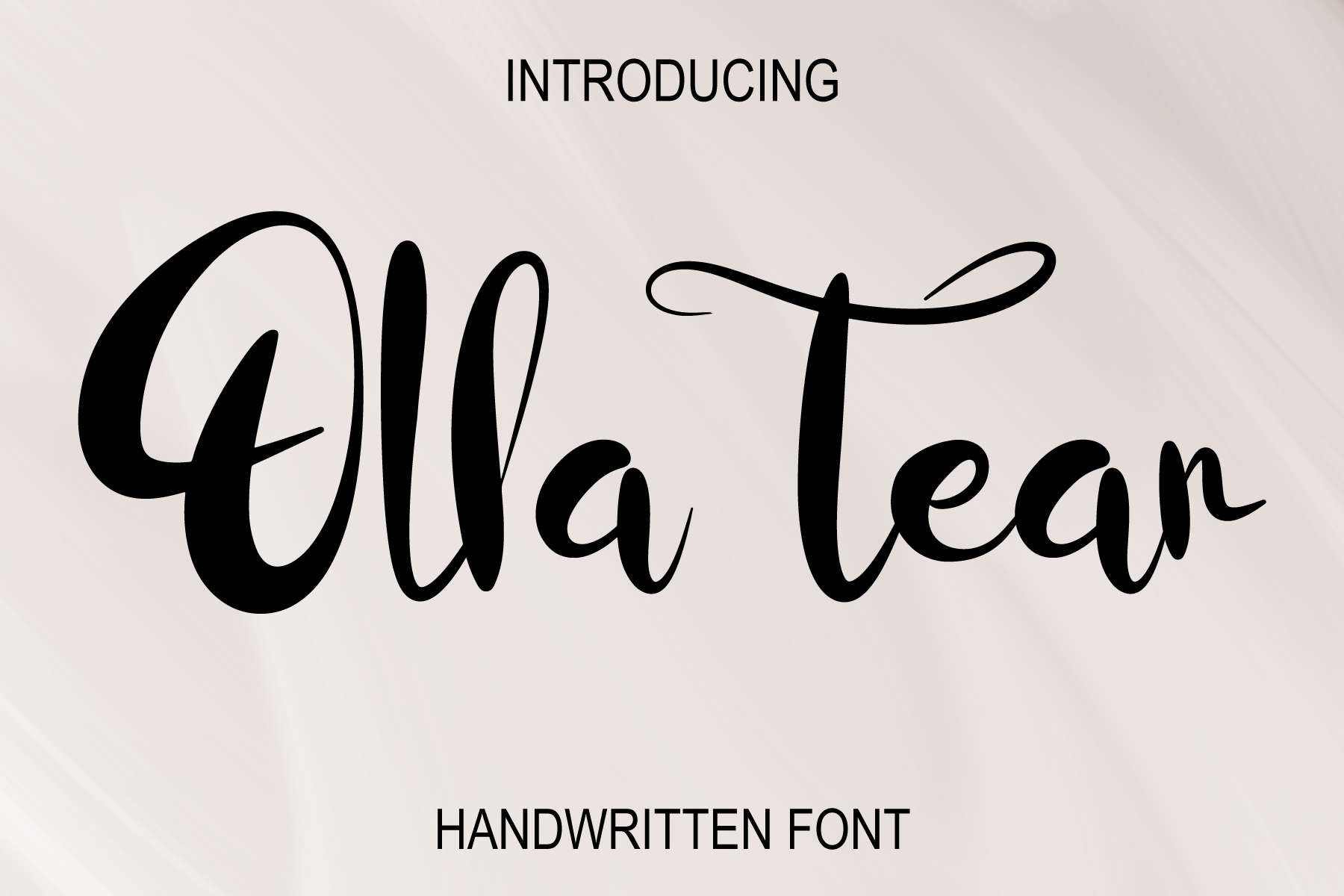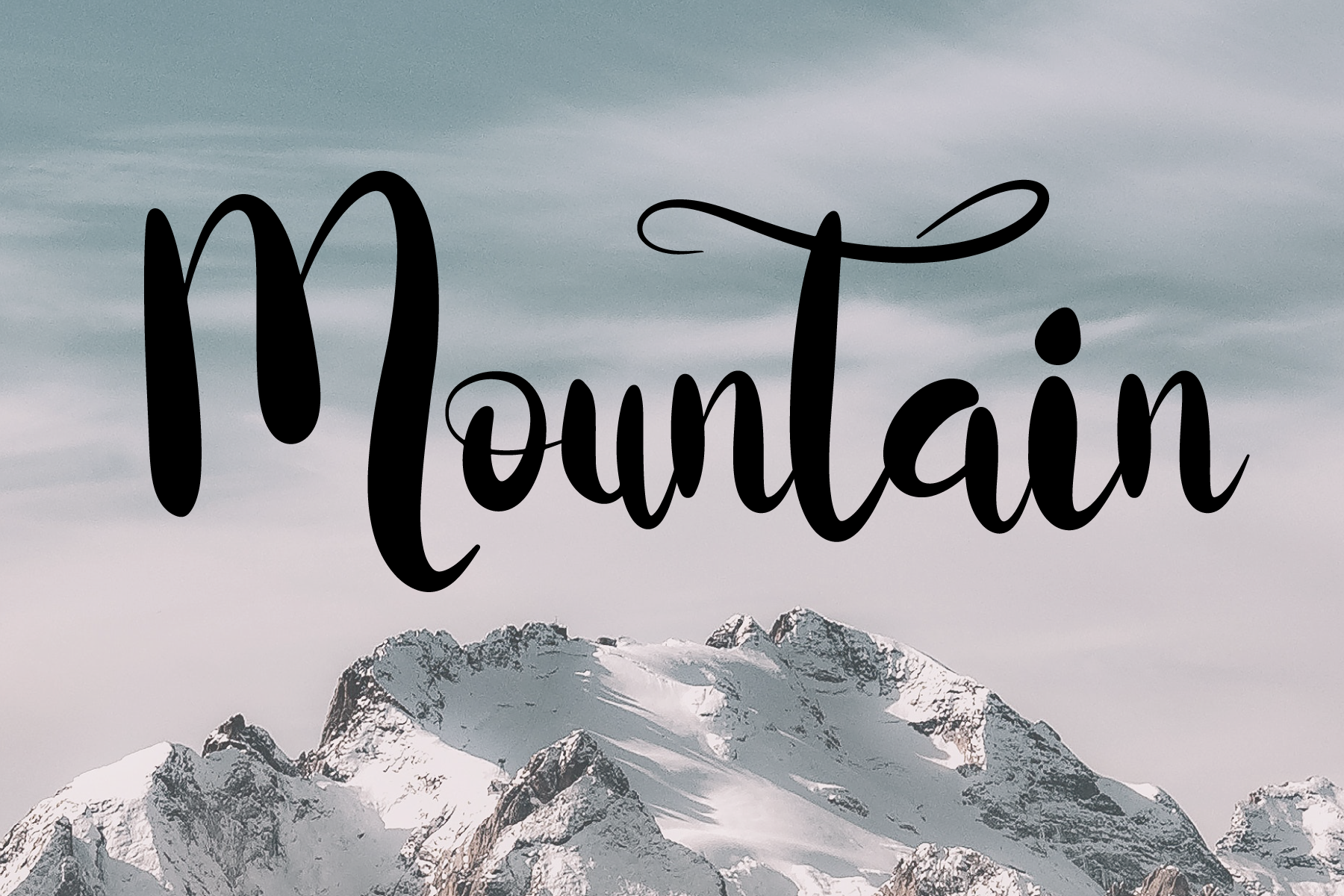
Olla Tear Script Font
This is a trendy and stylish script font. It looks stunning on wedding invitations, thank you cards, quotes, greeting cards, logos, business cards and every other design which needs a handwritten touch.